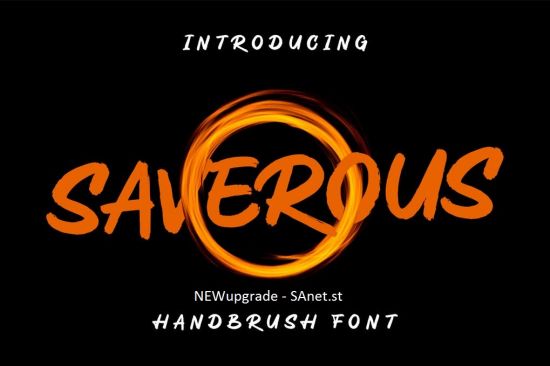
DesignOptimal - Saverous - Cute & Not really Horror Typeface
Saverous is a cute and a little bit horror typeface that we crafted specifically for every events for kids from age 3 to 12. We made it all uppercase because most of kids really like big letters.